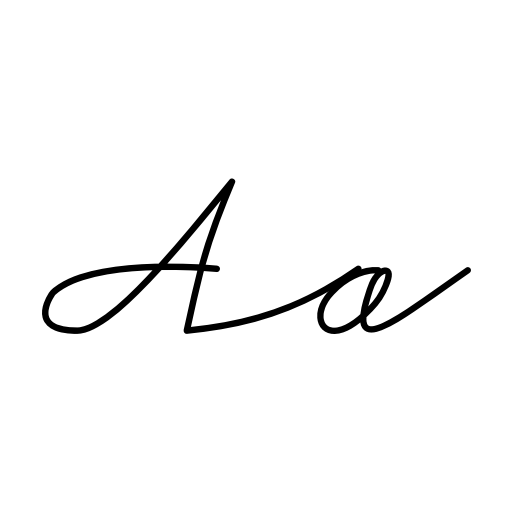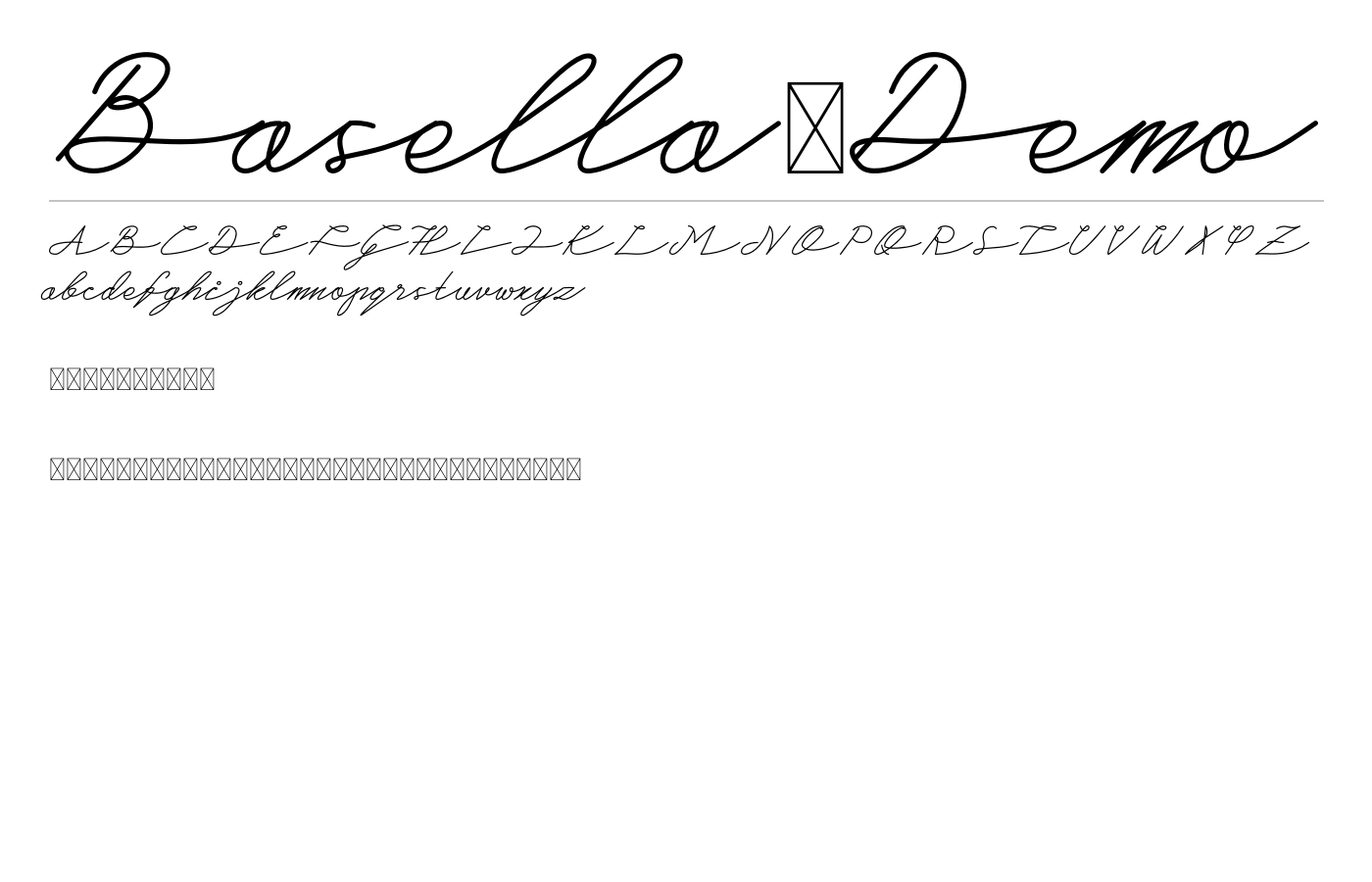
Basella-Demo is an elegant script font characterized by its delicate, flowing lines and refined cursive style. Its light weight and graceful letterforms give it a sophisticated, handwritten feel ideal for luxury branding, invitations, and editorial headlines where a personal yet polished touch is desired. The font’s airy spacing and smooth connections make it charming and readable, perfect for creating an intimate and stylish mood.
| Font family | Basella-Demo Font |
| Designer | Esa Prasetio |